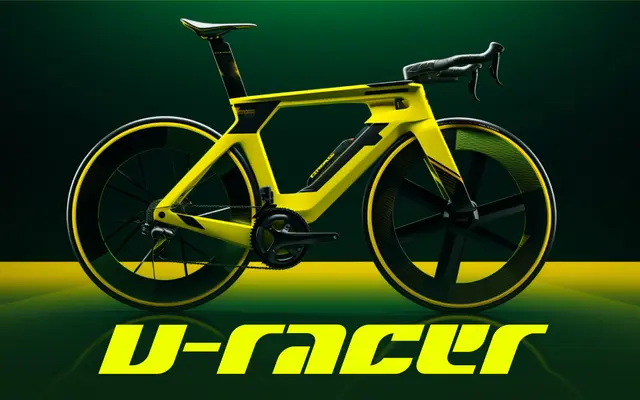
BD Fazer
Type Different · 1996
A single-weight slanted display face from 1996, designed around a racing aesthetic with a lowercase-only character set.
Originally drawn in 1996 and updated in 2023 with improved kerning and broader language coverage, BD Fazer is a leaning, speed-oriented display font aimed squarely at motorsport and action contexts. It offers only a single weight and no upright or italic variants beyond its inherent slant. Useful for titles and short-burst copy where an aggressive sporting tone is required.
A slanted, lowercase-only racing-themed display face with an aggressive italic posture; designed explicitly for sporty, high-speed visual contexts rather than text setting.